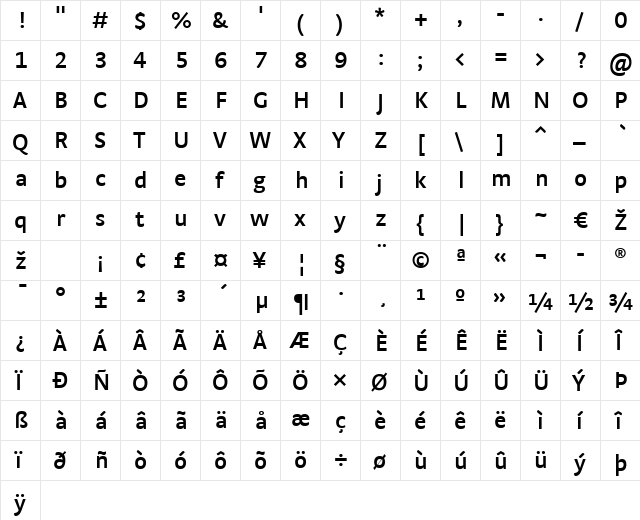
StradaTF-SemiBold Regular
| Designer | Albert Pinggera |
Design Context for StradaTF-SemiBold Typeface
StradaTF-SemiBold takes a measured approach to typography — its balanced proportions and neutral character make it a reliable workhorse for both digital and print work. Its bold stroke weight gives it real presence on the page.